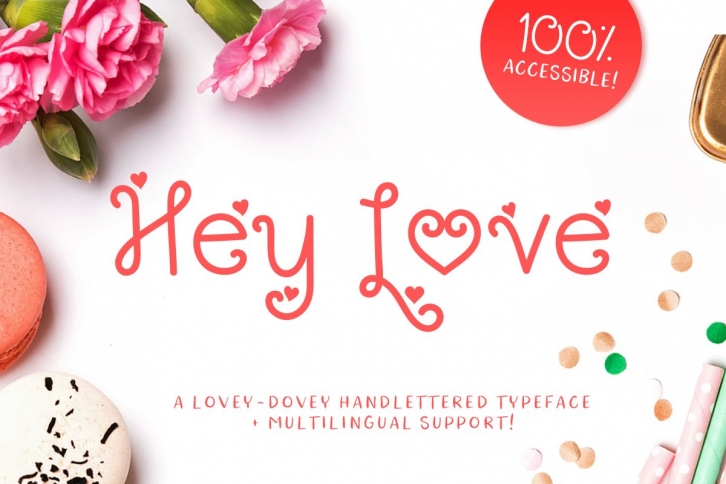
Hey Love is a lovey-dovey handlettered script typeface with a monoline style. Perfect for Valentine's Day designs & craft projects! Ideal for logo, quote, blog header, invitation, branding, t-shirts, posters & etc! Includes many alternative characters with multilingual support. It's 100% accessible to all, PUA-encoded font, so you may access to all the extra characters without having special designing software!